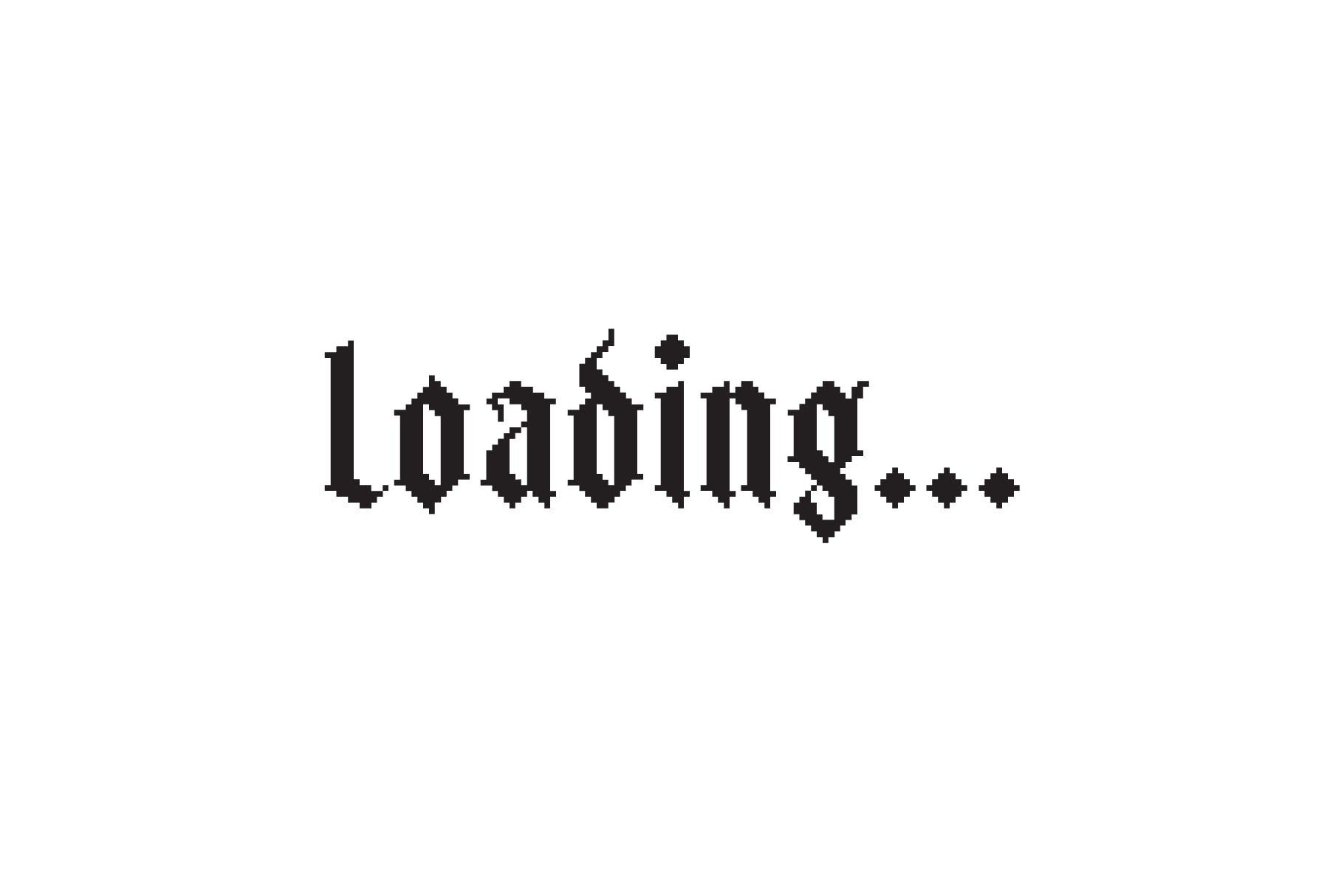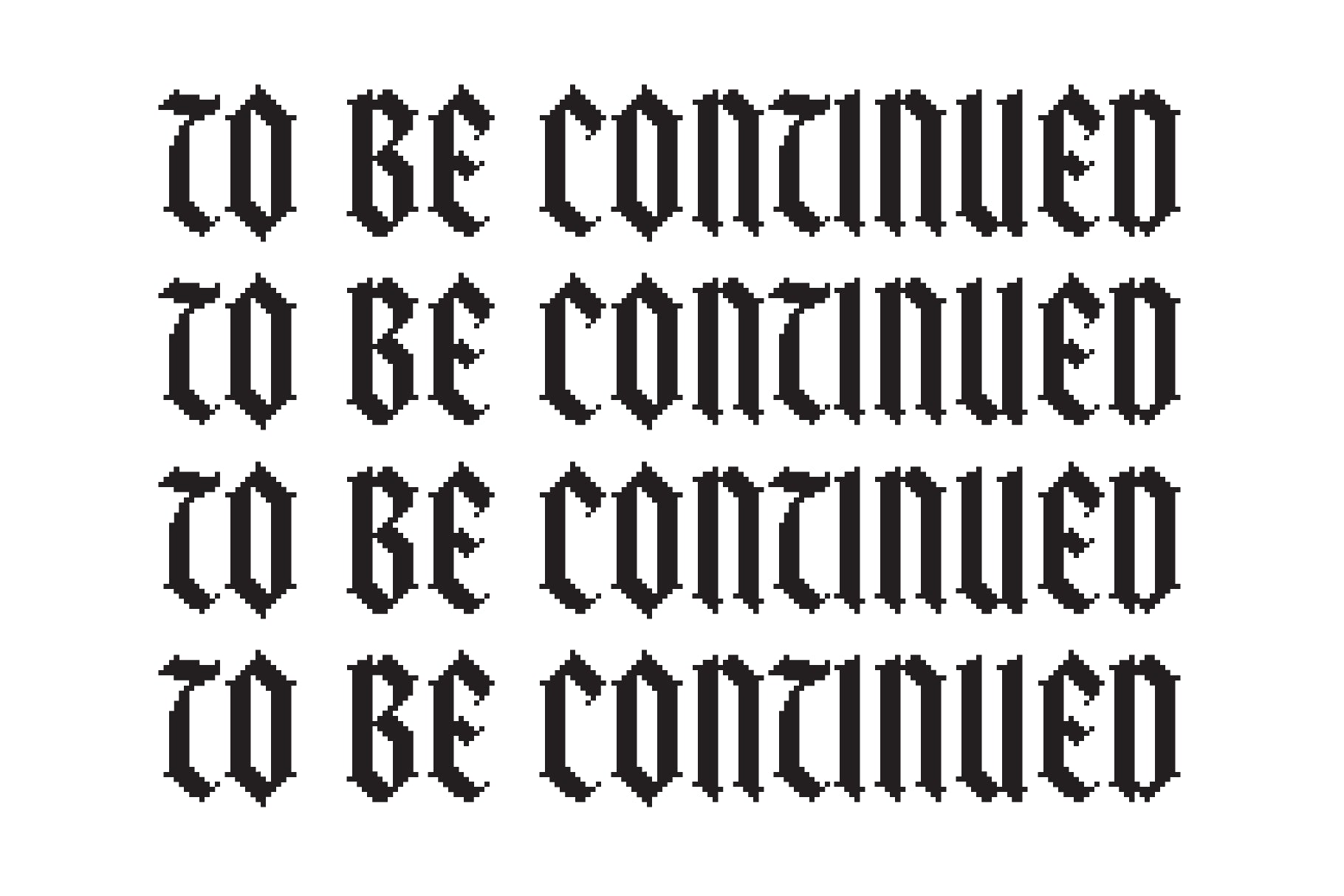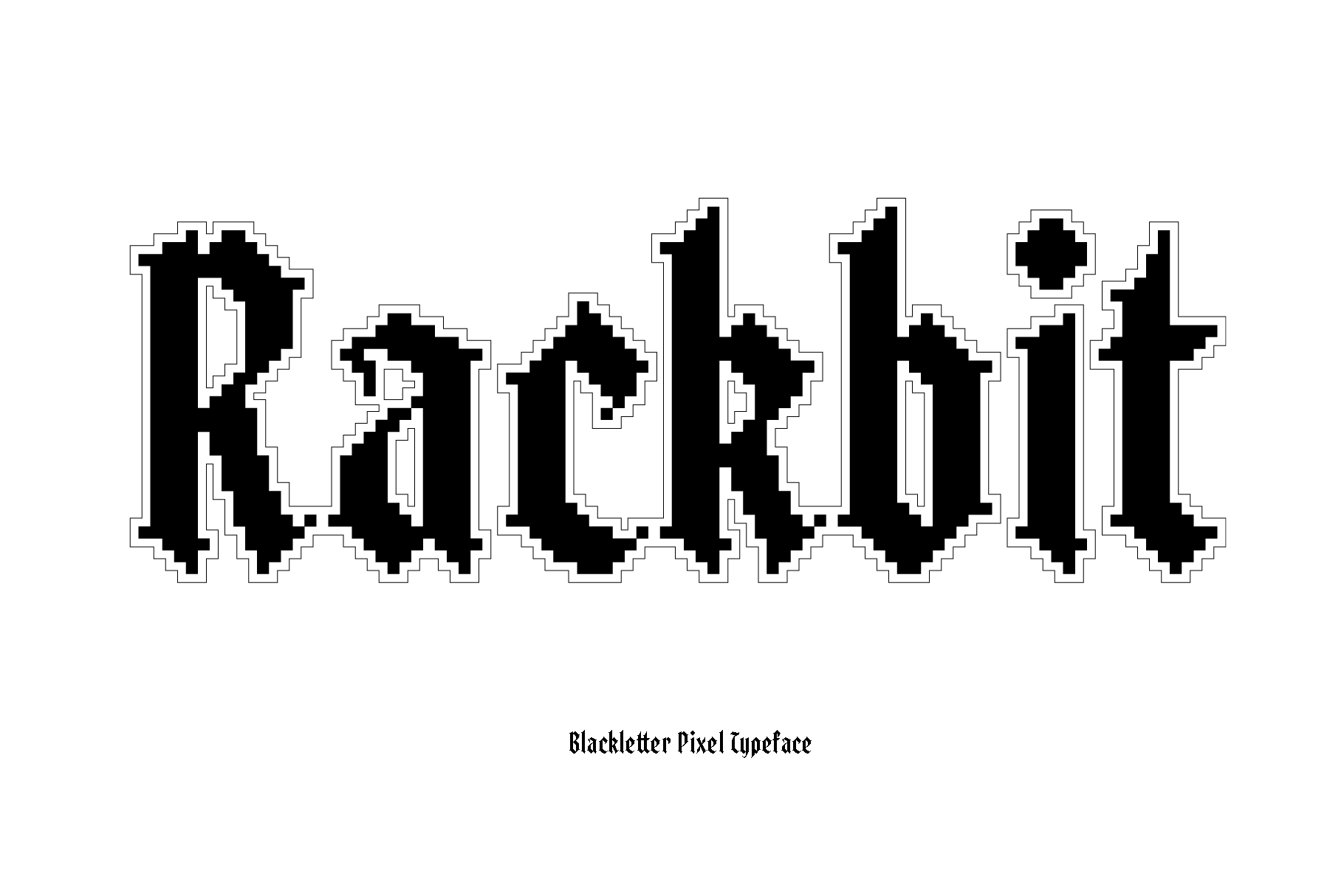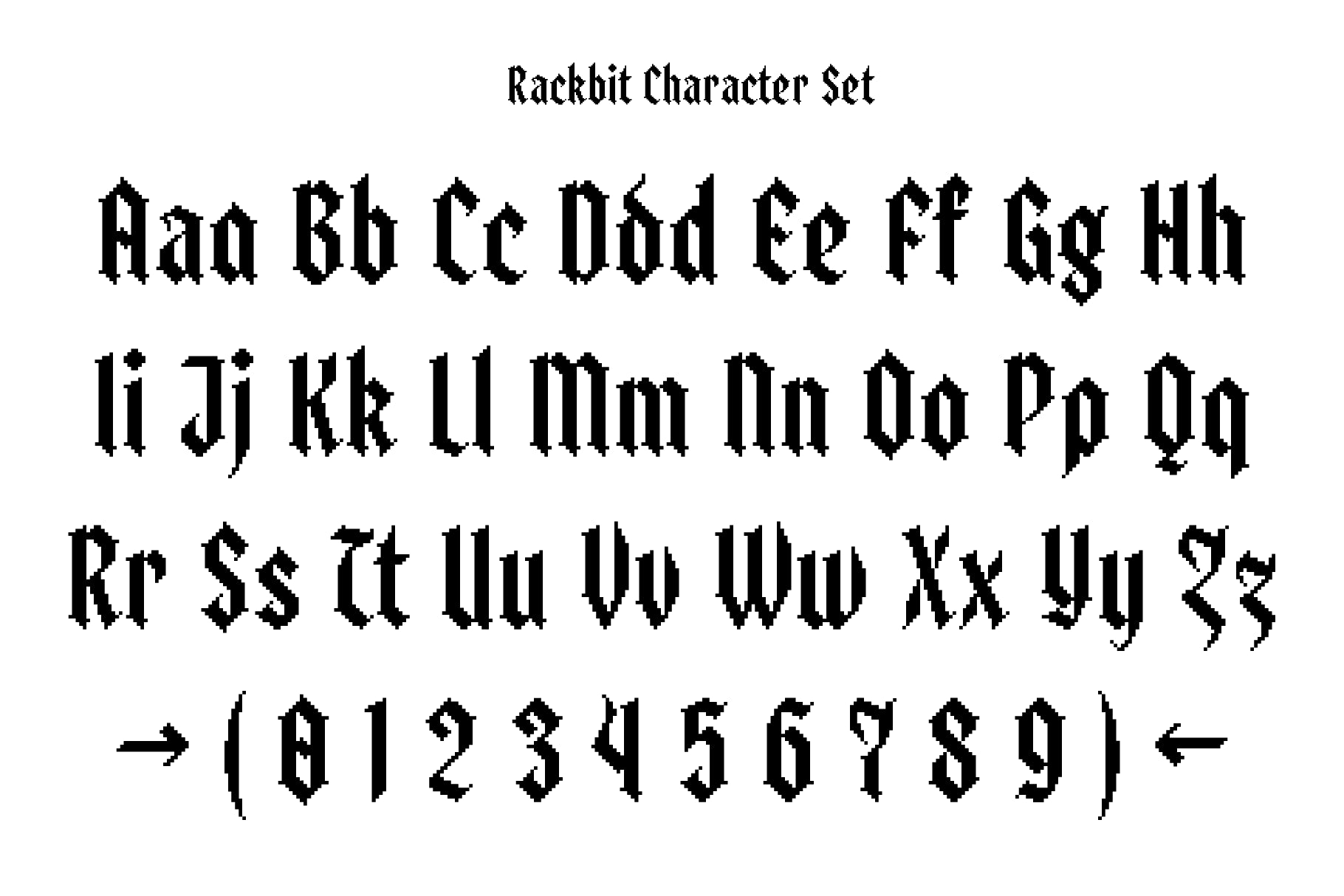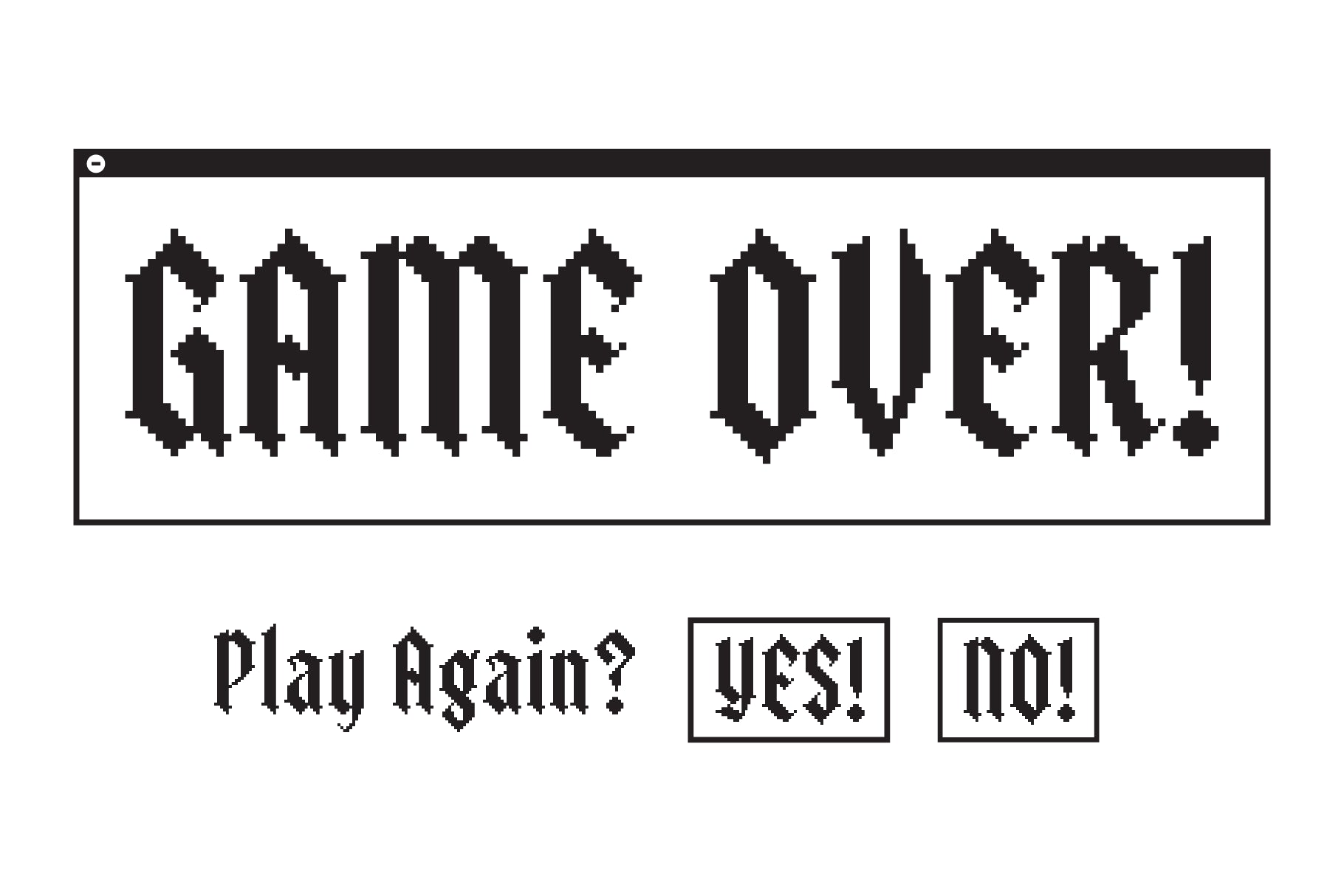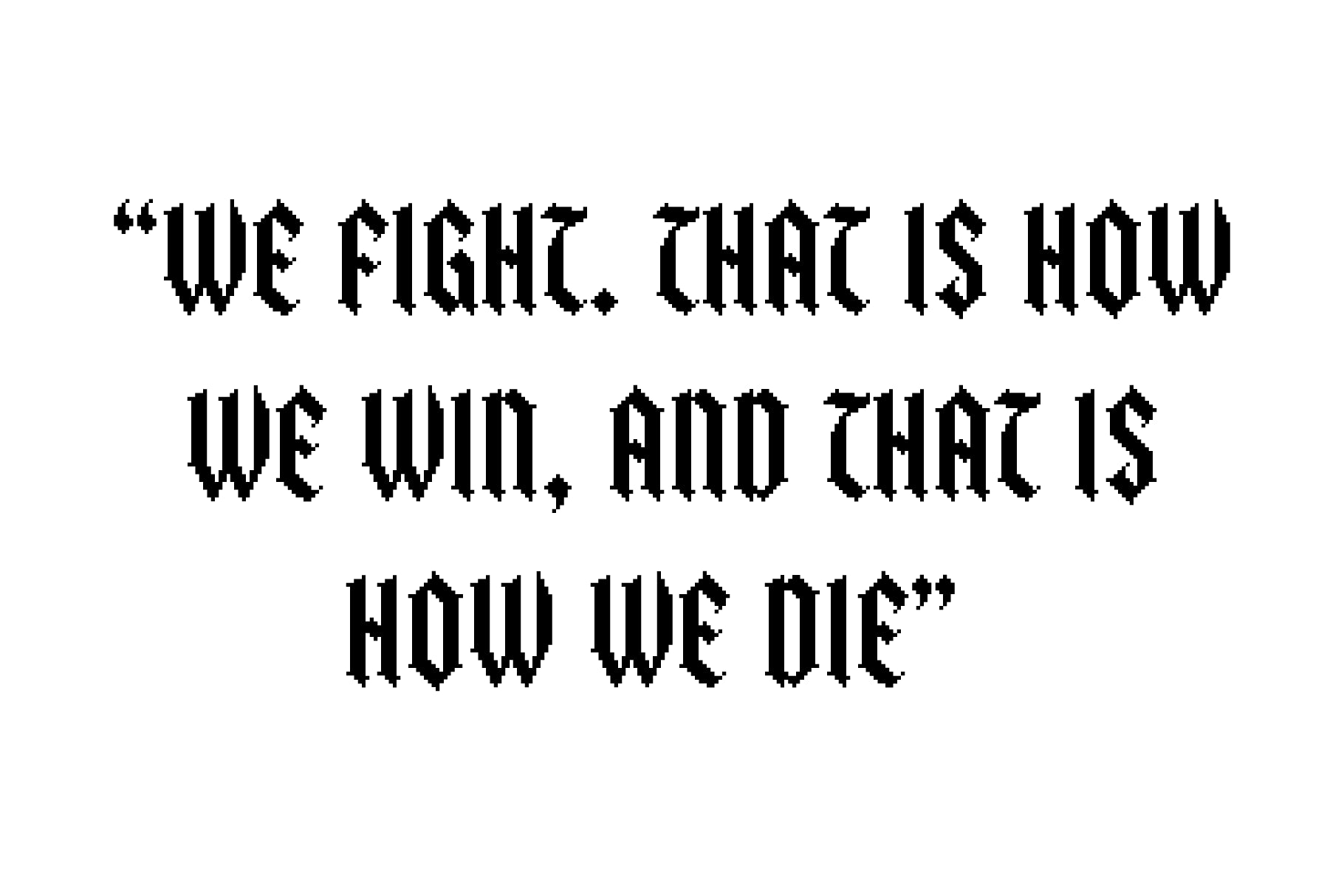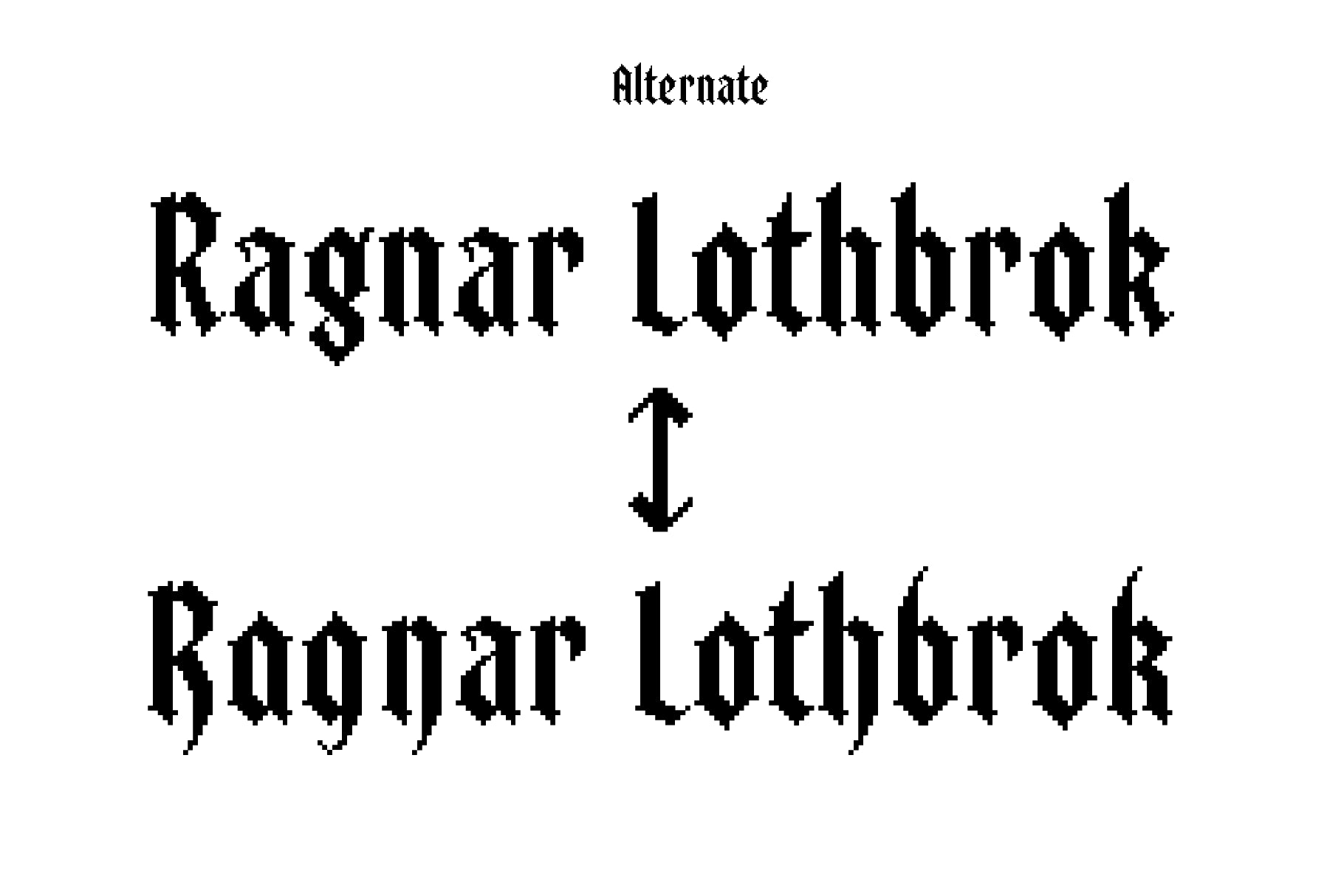
Rackbit – Blackletter Pixel Font
Rackbit is a bold blackletter display font that combines traditional Gothic-inspired letterforms with a distinctive pixelated, digital aesthetic. Its sharp shapes and retro-tech details create a unique visual style that blends medieval character with modern digital culture.
Designed for impactful typography, Rackbit works especially well for logos, headlines, posters, album artwork, gaming graphics, esports branding, apparel, and other bold creative projects.
The pixel-inspired construction gives Rackbit a distinctive retro-tech feel while maintaining the strong presence and decorative character of a classic blackletter typeface.
Multilingual Support — An extensive character set for a wide range of languages.
Alternate Characters — Stylish alternates for creating more distinctive and personalized typography.
Standard Ligatures — Carefully designed letter combinations for smoother and more refined results.
Uppercase & Lowercase — Complete character set for flexible display typography.
Numerals & Punctuation — Essential characters for a wide range of design applications.
Perfect for
Logos & branding
Gaming & esports graphics
Posters & headlines
Album & music artwork
Streetwear & apparel
T-shirt designs
Medieval-inspired graphics
Retro-tech designs
Digital & cyber aesthetics
Packaging
Editorial design
Rackbit is made for designers looking for a bold blackletter typeface with a pixelated twist — bringing together Gothic tradition, retro gaming, and digital aesthetics in one distinctive display font.
Rackbit is a bold blackletter display font that combines Gothic-inspired letterforms with a pixelated construction. It includes uppercase and lowercase characters, numerals, punctuation, alternate characters, standard ligatures, and multilingual support.